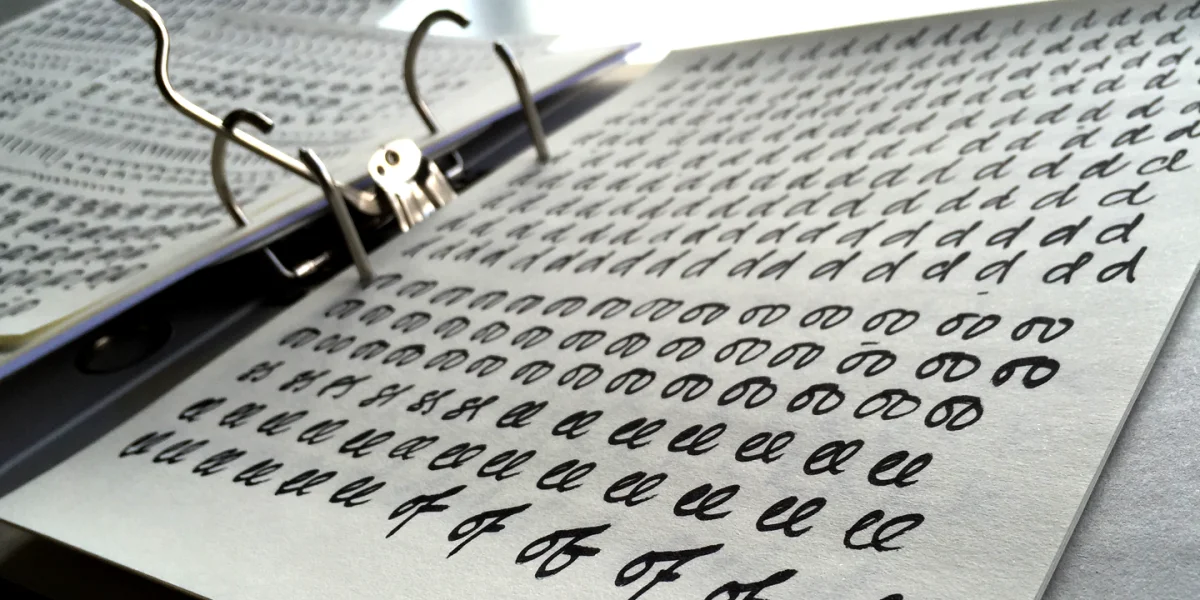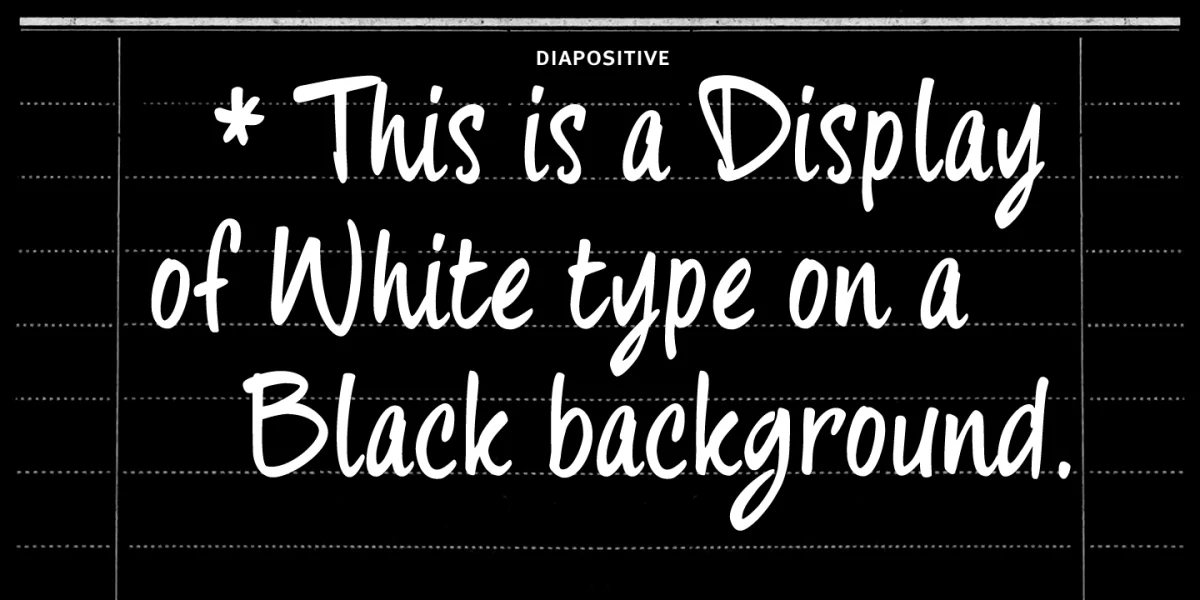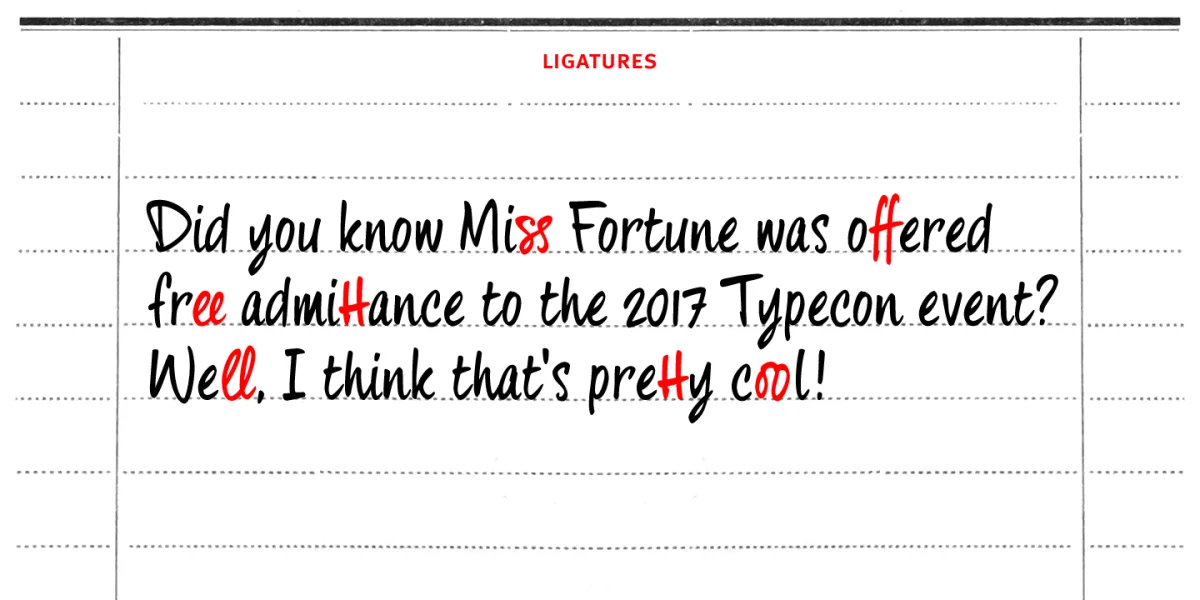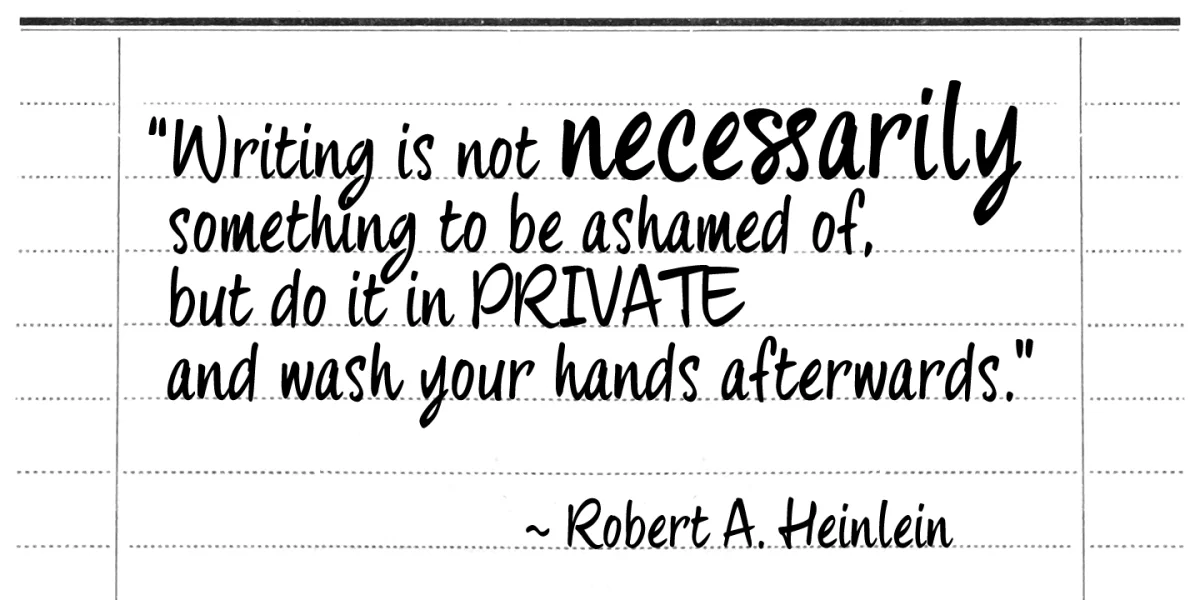
This is a dressed down TRIAL version of the fourHand font. The complete font features a bunch of ligatures and a complete set of special signs and accents. You can buy your copy here: www.joebobgraphics.com/fonts/fourhand/
fourHand Regular is a font by - JOEBOB graphics, designed by JJW van der Ham in 2017.